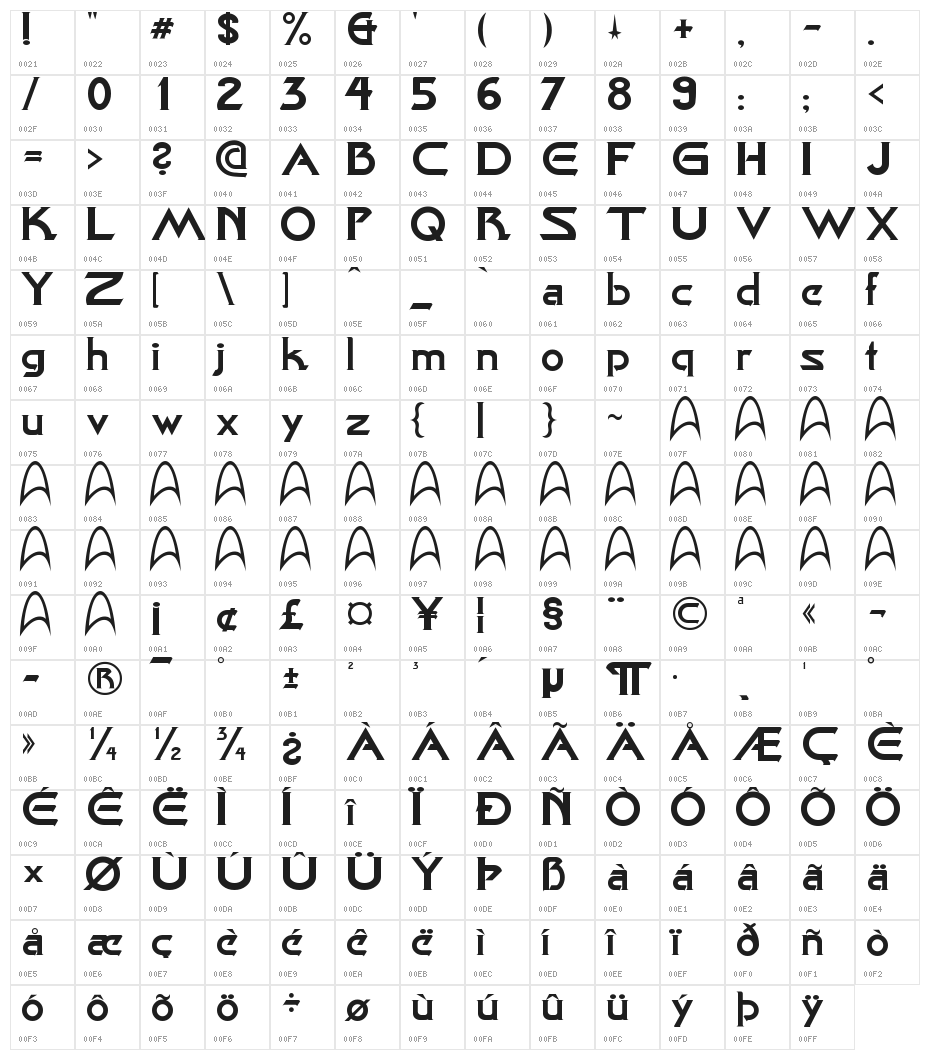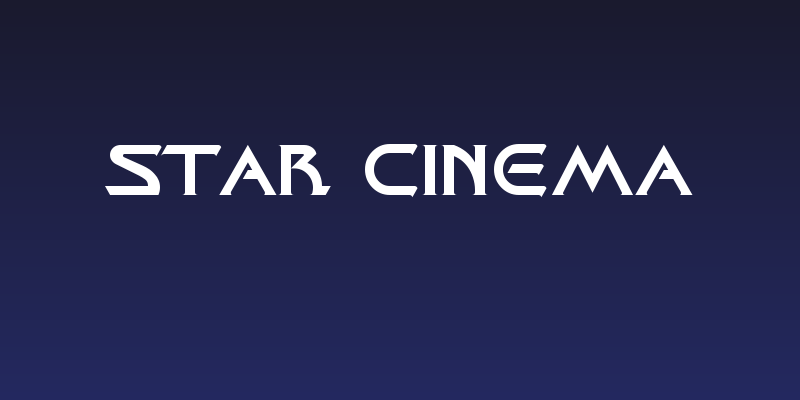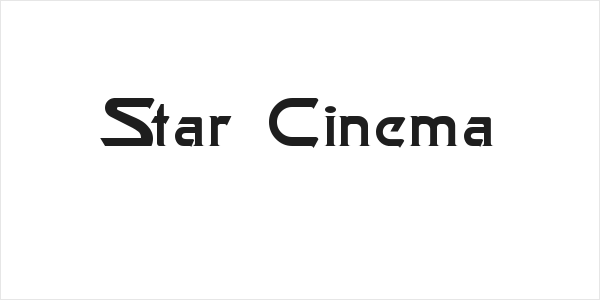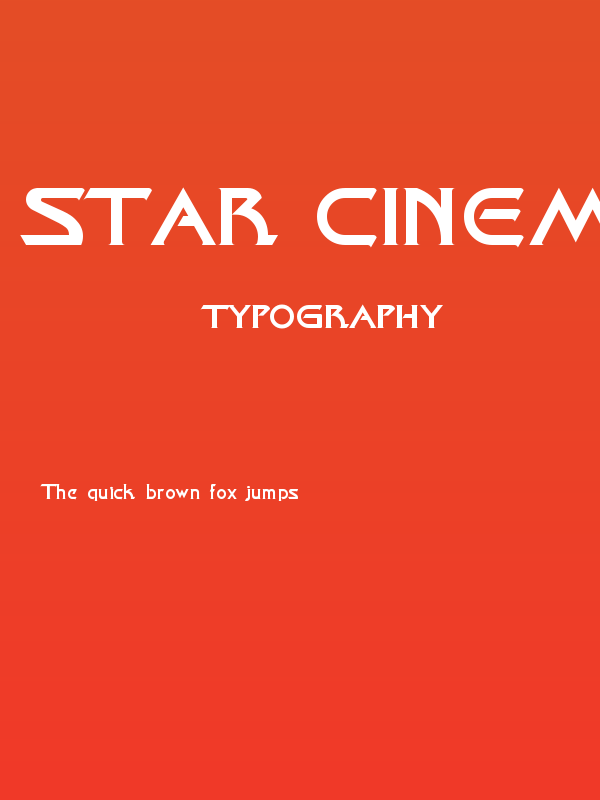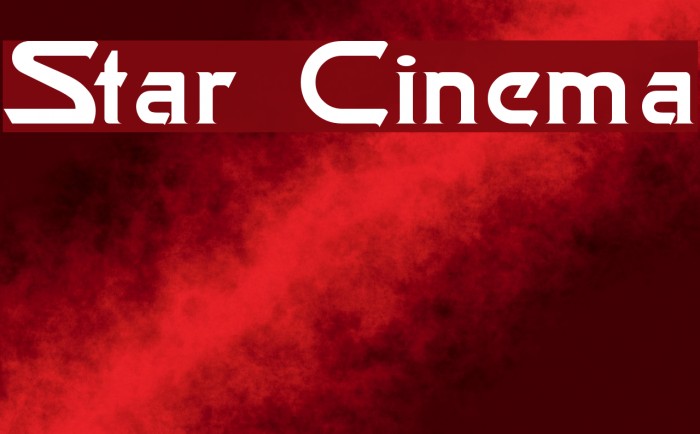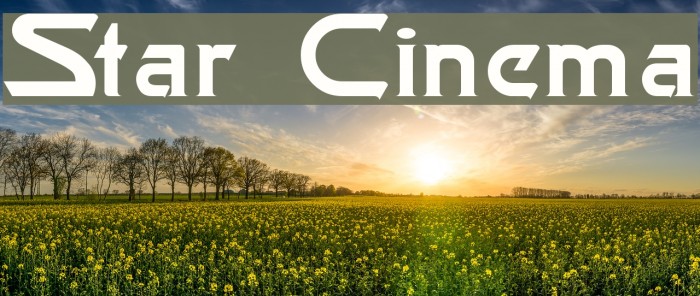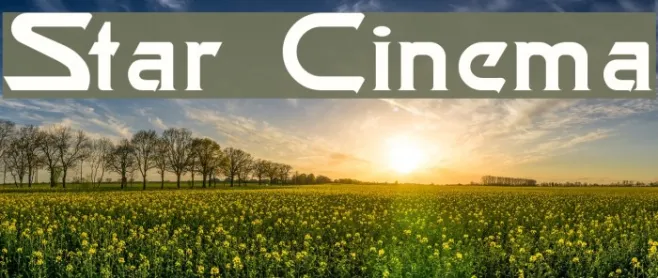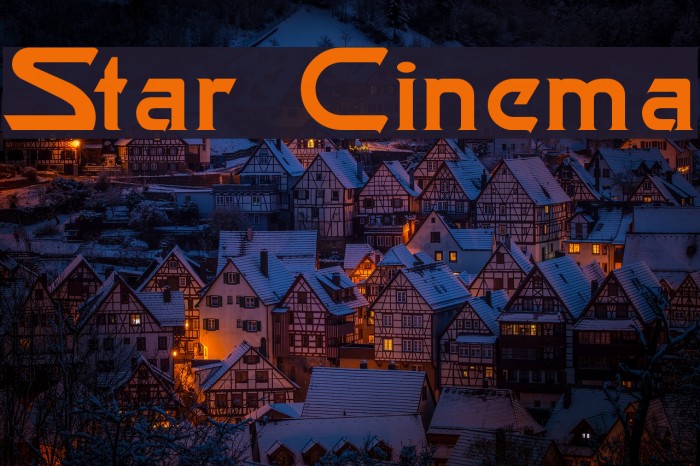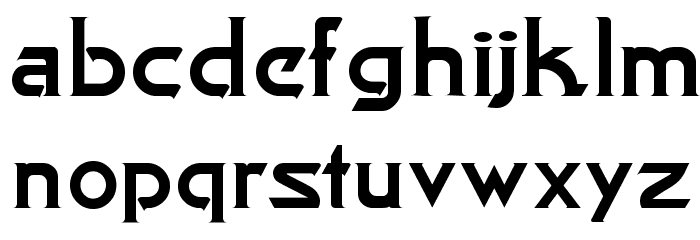
Star Cinema Font
Star Cinema Description
This font features a bold and dynamic design with sharp, angular edges and a futuristic aesthetic. The uppercase letters are particularly striking, with a geometric style that gives them a strong presence. The lowercase letters maintain this angular theme, providing a cohesive look across the typeface. Numbers and special characters are designed with the same attention to detail, ensuring consistency throughout. The overall appearance is modern and slightly aggressive, making it suitable for projects that require a bold statement.
| Overall Style | Futuristic |
| Proposed Projects | Ideal for sci-fi movie posters, video game titles, technology branding, and any project needing a modern, bold typeface. |